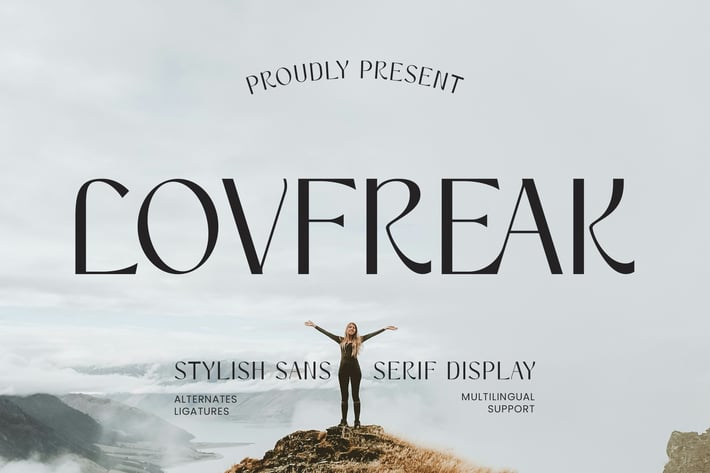
Lovfreak - Sans Serif Font
Lovfreak - Sans Serif Font contains a lowercase, uppercase, symbol, and also supports multi-language. There’s a lot of ligature in this font. Lovfreak - Sans Serif Font also comes with ligatures, stylistic alternates and many more.
this font suitable for fashion, branding, catalog and other design that you want.